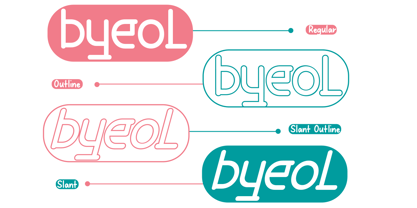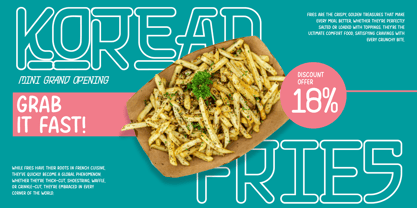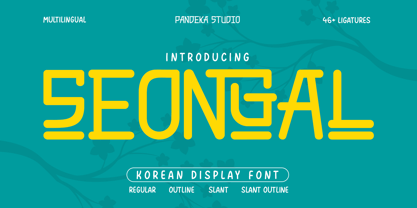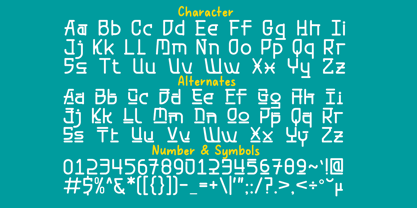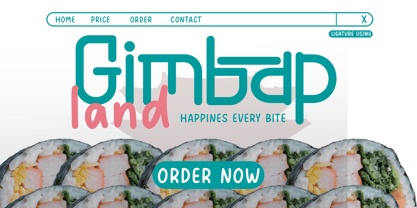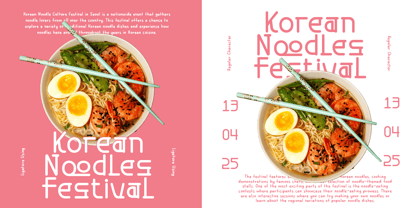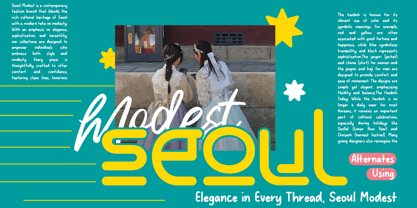
Seongal
by Pandeka Studio
The Seongal Font Family was designed by Sagara Nararya and published by Pandeka Studio. Seongal contains 4 styles and family package options.
Seongal – Korean Display Typeface in 4 Styles
Seongal is a Korean display typeface that blends bold typography with a traditional aesthetic and modern design. Its elegant curves reflect cultural style while maintaining unique lettering for a distinctive look.
Available in Regular, Outline, Slant, and Slant Outline, Seongal is perfect for branding, editorial design, cultural events, packaging, signage, and logo typography, adding a timeless and refined touch to any project.
• 4 Styles: Outline, Regular, Slant, Slant Outline
• Full Character Set: uppercase, lowercase, numbers, symbols, punctuation and ligature
• 46+ Ligatures and alternates
Designers: Sagara Nararya
Publisher: Pandeka Studio
Foundry: Pandeka Studio